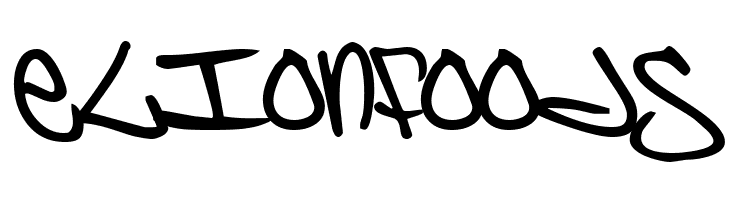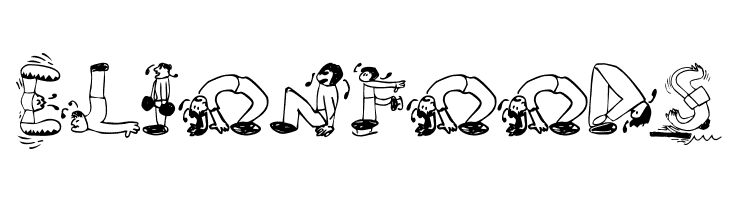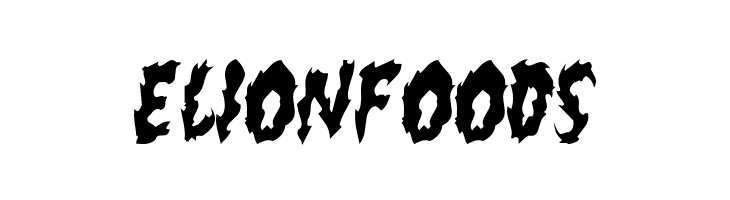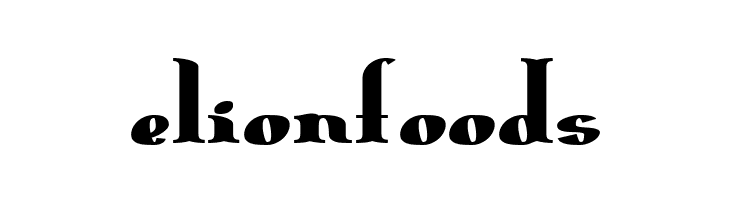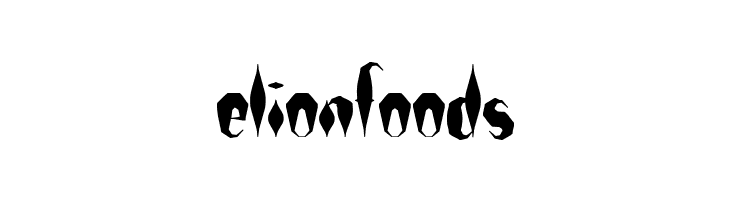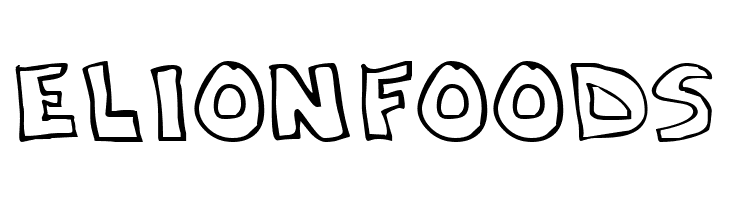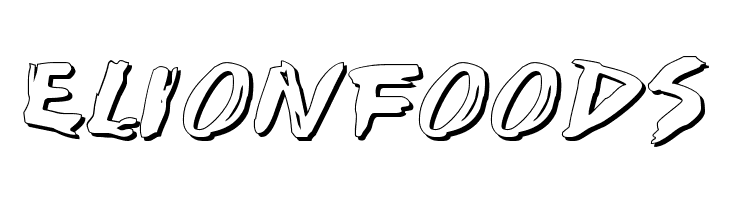
A playful, bold font with rounded, bubble-like characters.
A playful, cartoonish font with characters integrated into dynamic illustrations.
A bold, dramatic font with sharp angles and smooth curves, perfect for creative projects.
A bold, dynamic font with sharp angles and a slightly condensed form.
A playful, hand-drawn font with bold outlines and a whimsical style.
A bold, hand-drawn font with a dynamic shadow effect and playful style.